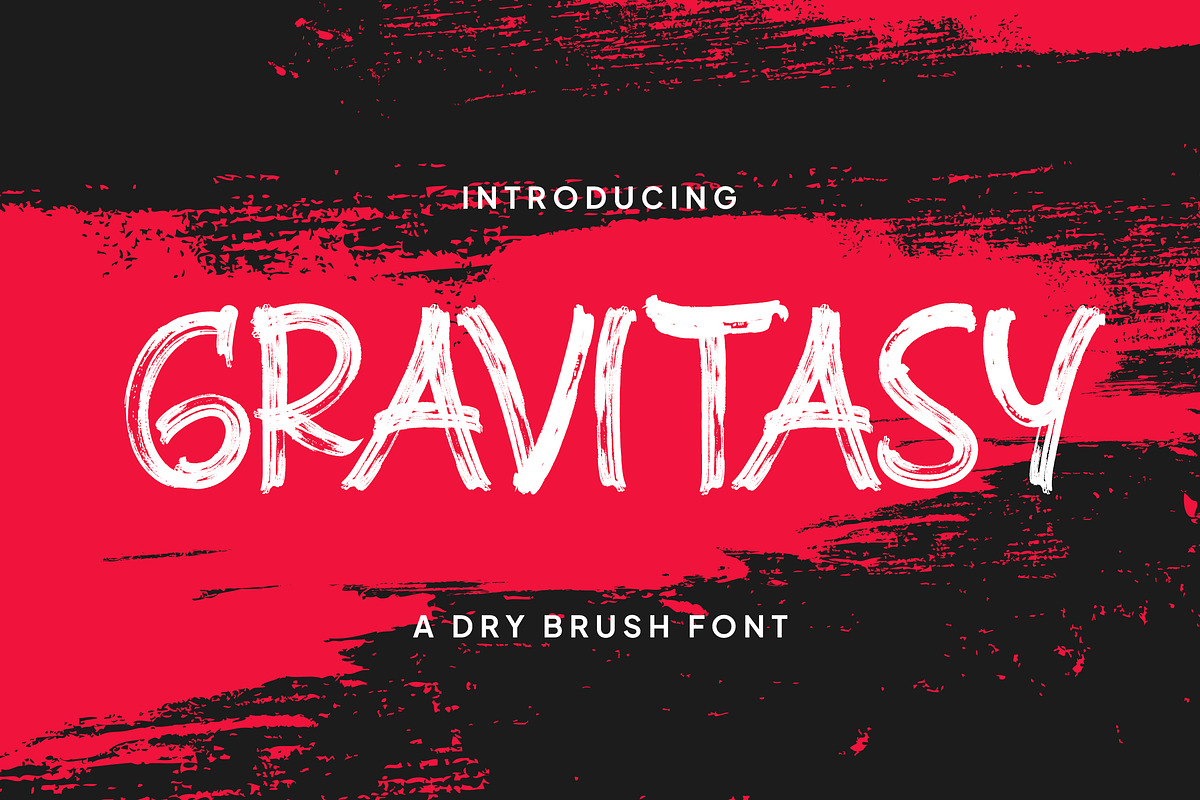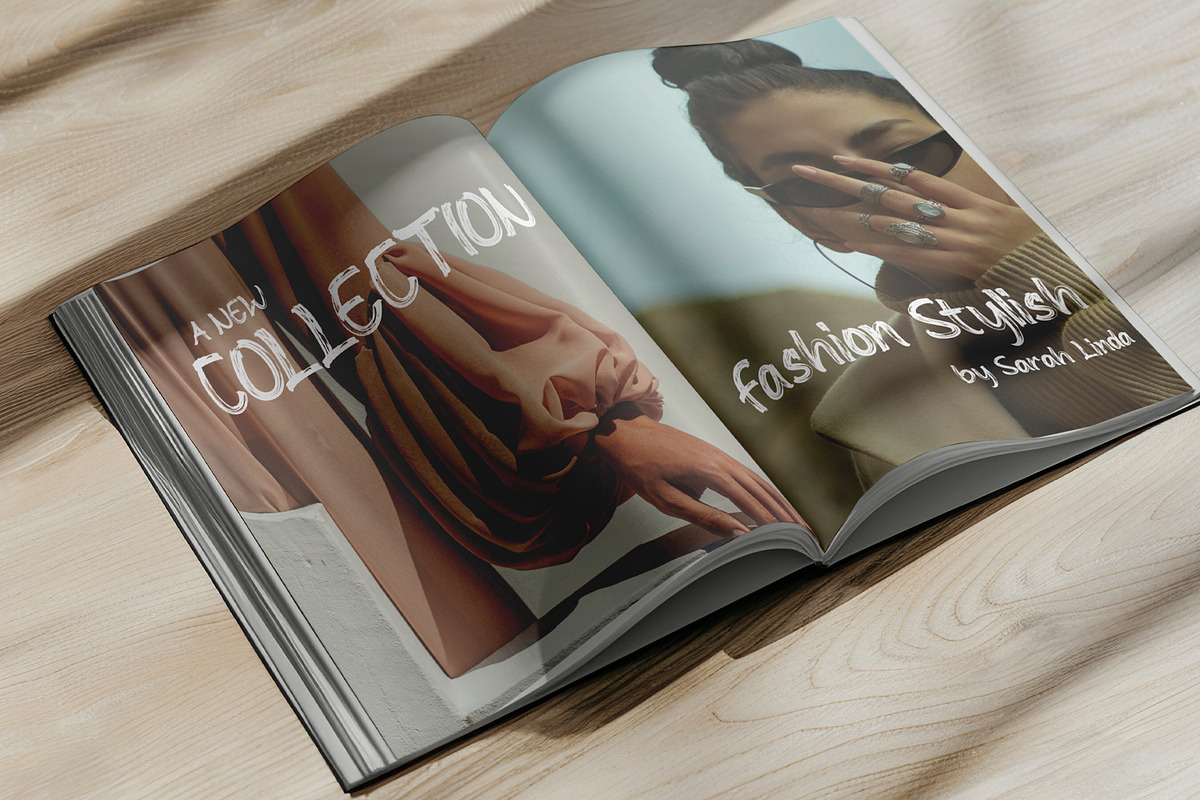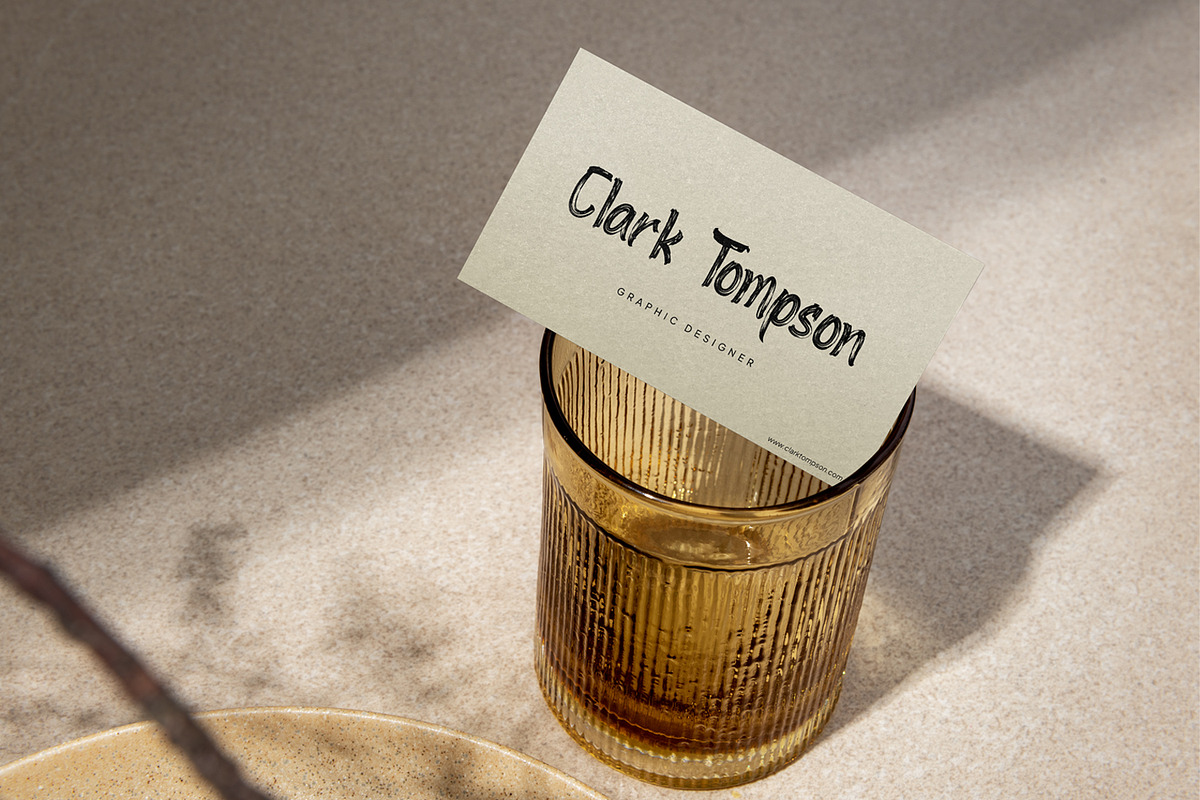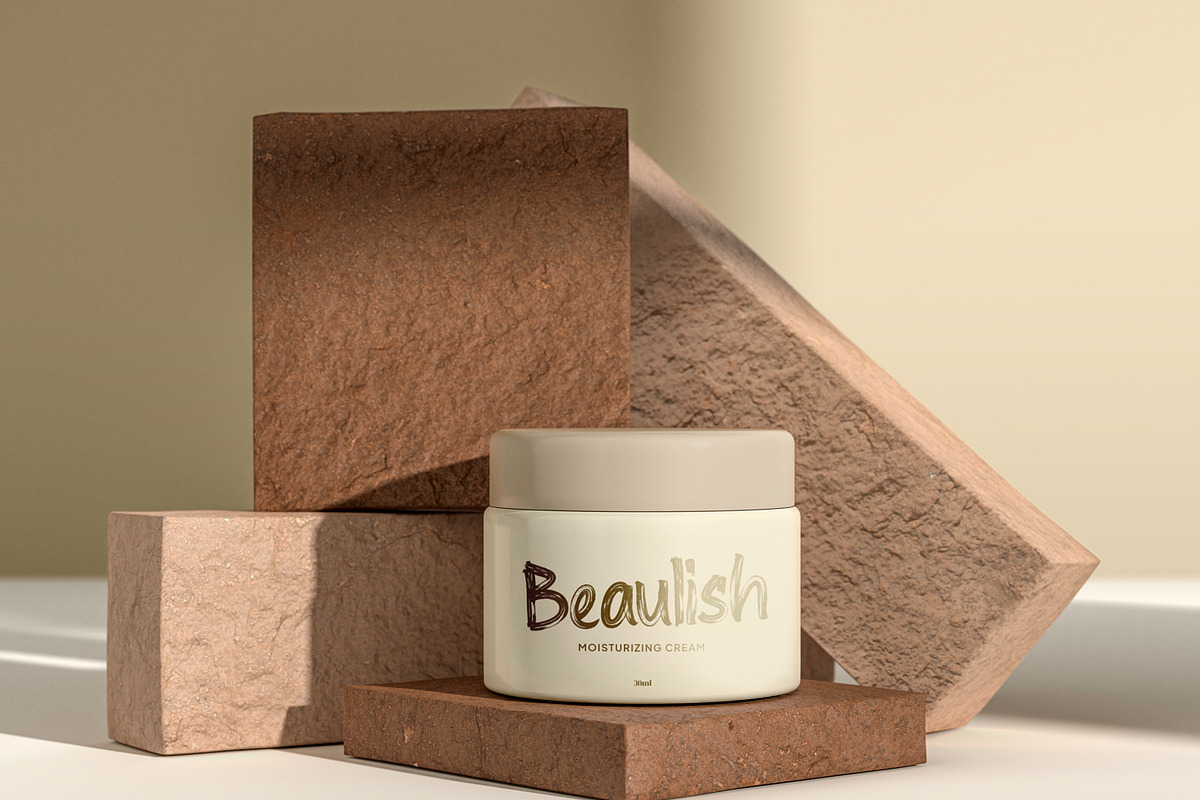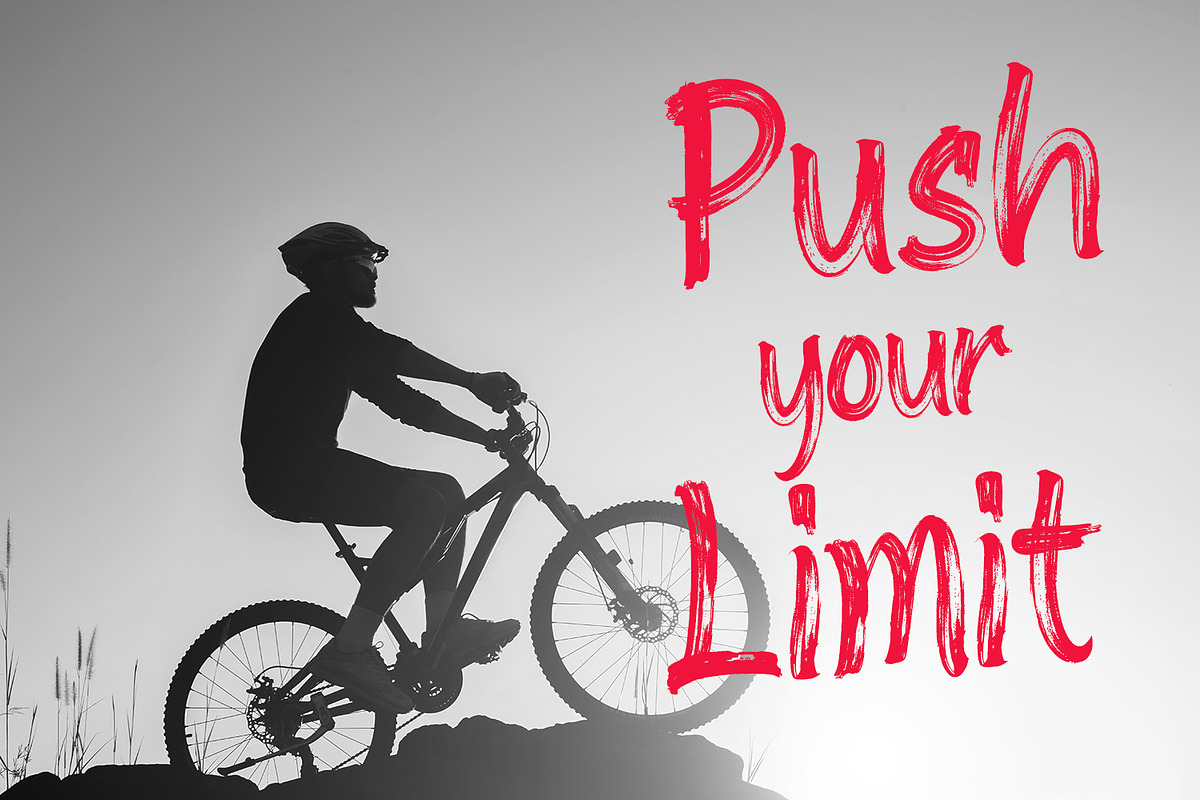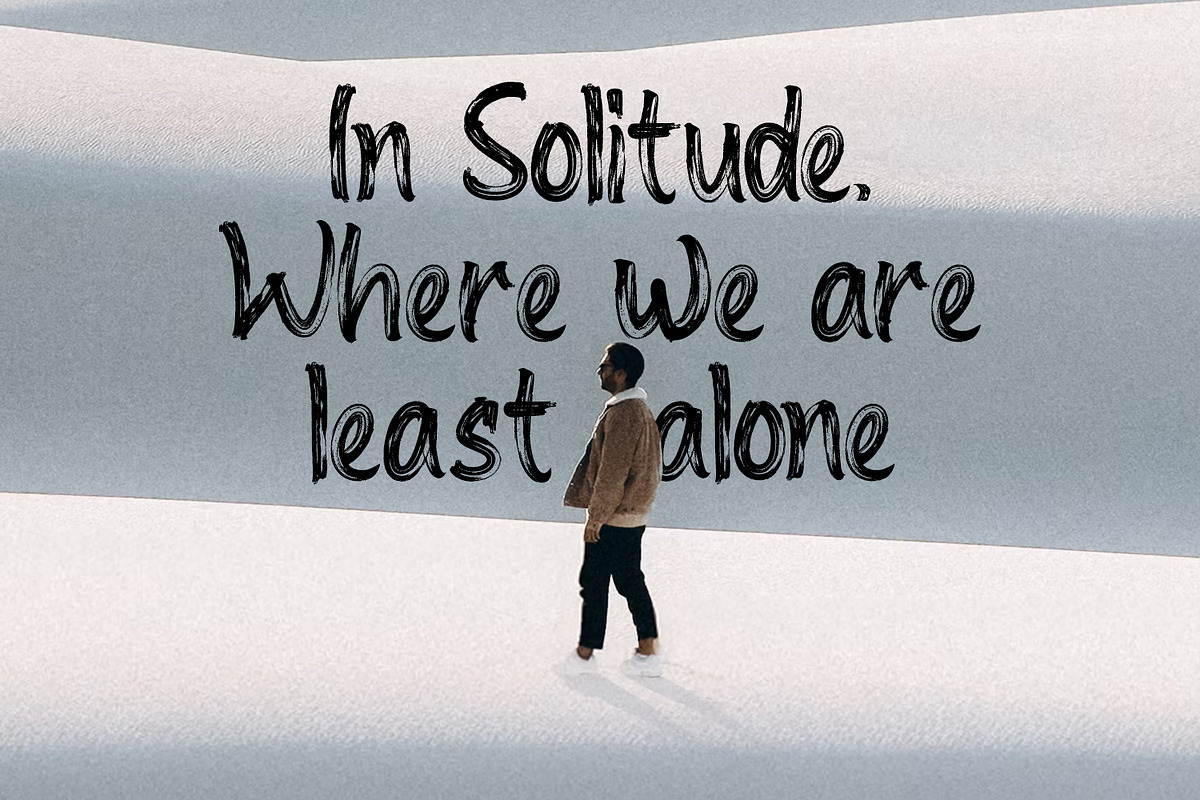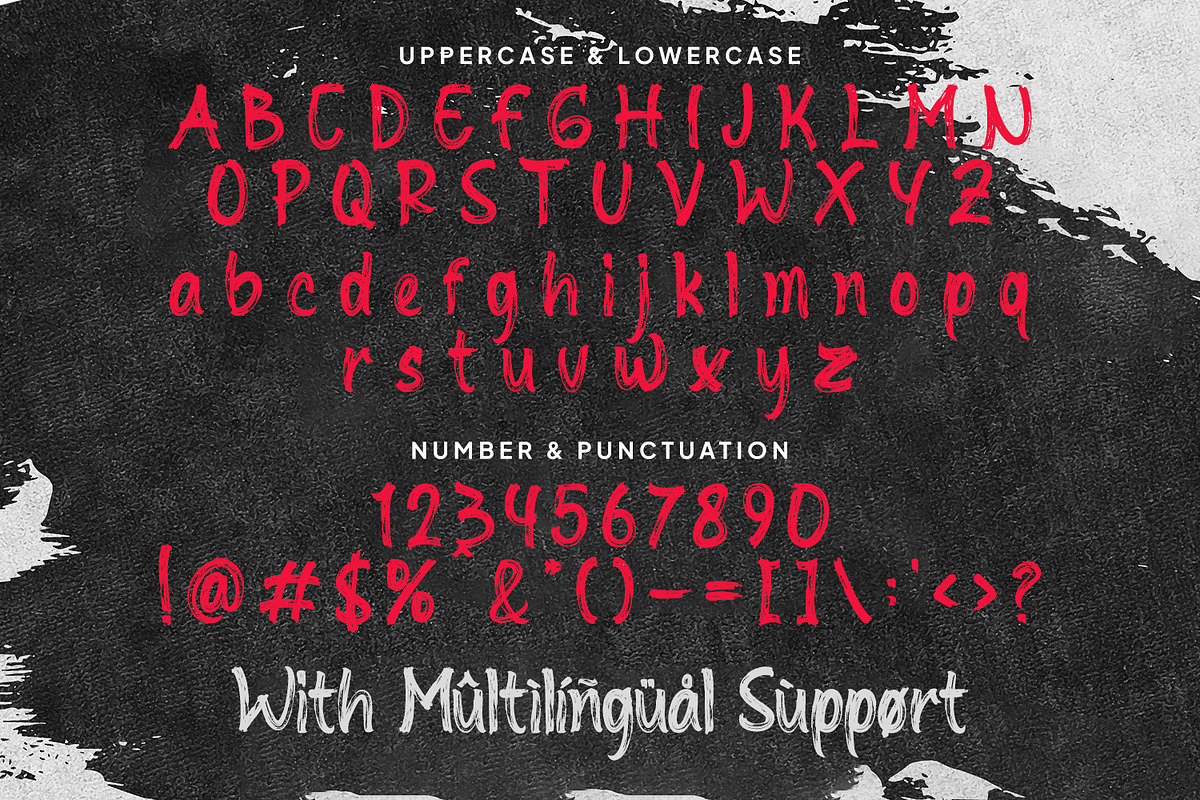
Gravitasy – Expressive Dry Brush Fon
Gravitasy is a bold and expressive dry brush font designed to bring raw energy and emotion into your designs. Featuring natural brush strokes with an organic texture, this font delivers a strong handcrafted feel that works perfectly for motivational quotes, posters, branding, apparel, album covers, editorial layouts, and modern advertising.
With full uppercase and lowercase characters, numbers, punctuation, and multilingual support, Gravitasy offers flexibility for both digital and print projects. Its rough brush texture creates an authentic handmade look, making your typography stand out with confidence, movement, and personality.
Ideal for designers who want powerful, artistic, and expressive typography with a modern edge.